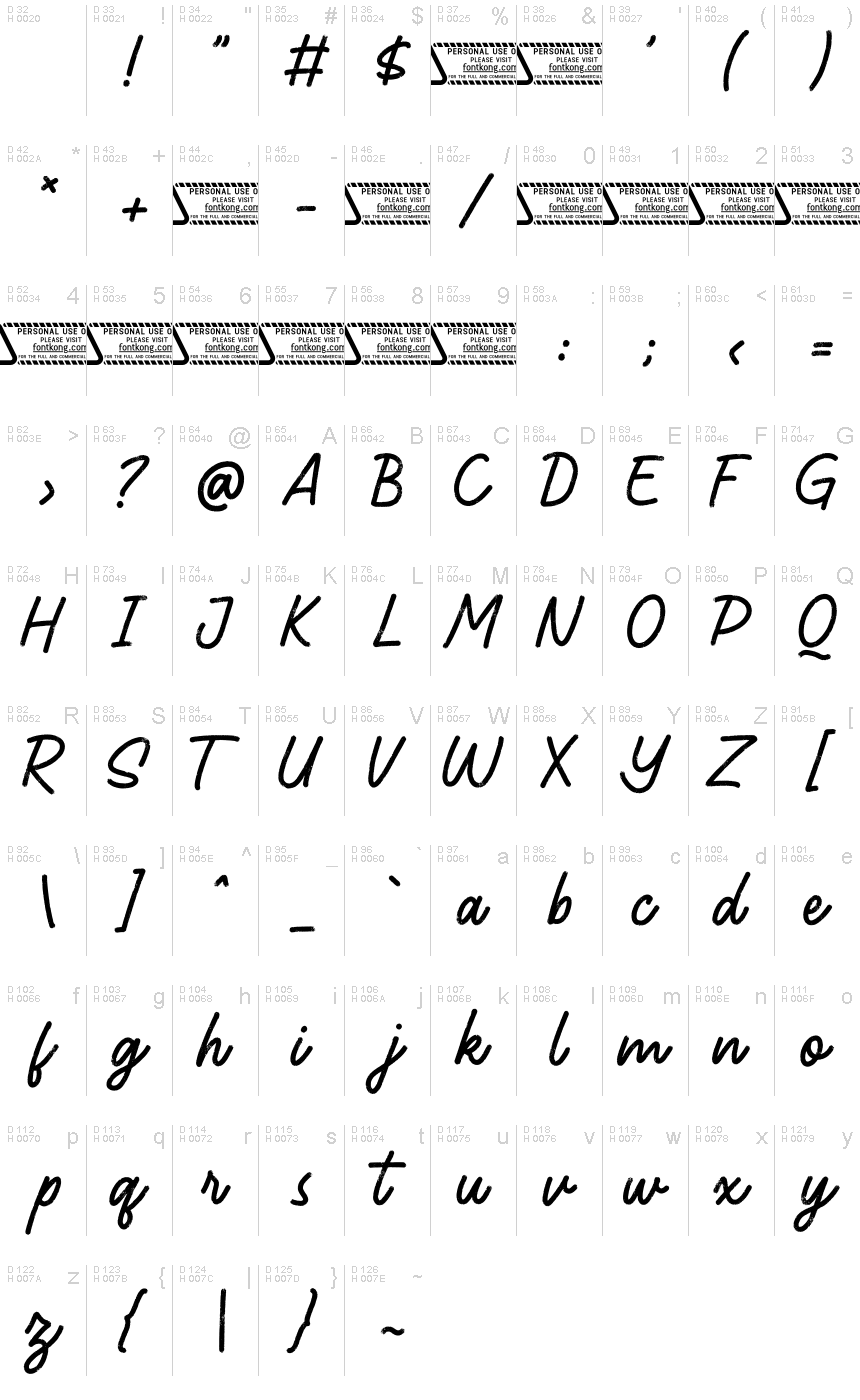
Shellbie
Shellbie font by Kong Font captures the essence of spontaneity with its dynamic handwritten style. This visually striking free font features a bold and expressive look, exuding a modern yet personal feel. Its textured strokes provide an authentic hand-drawn appearance, making it ideal for projects that demand a touch of creativity and individuality.
Perfect for branding, invitations, and social media graphics, Shellbie adds a unique flair to your designs. Whether crafting captivating headlines or creating memorable logos, this font ensures your message stands out.